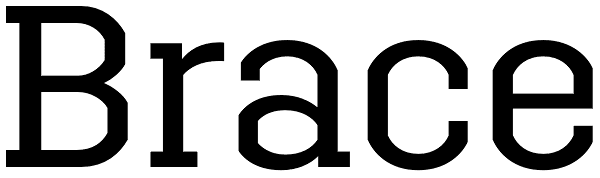
Brace
Remember all those bits we trimmed away in 2012? We’re bringing them back. We started with laying slabs serifs onto Trim, thinking we would call it Trim Slab. The foundation always seemed like the perfect base to build on, and we felt a slab version...
Brace